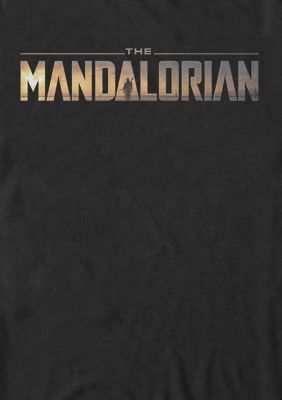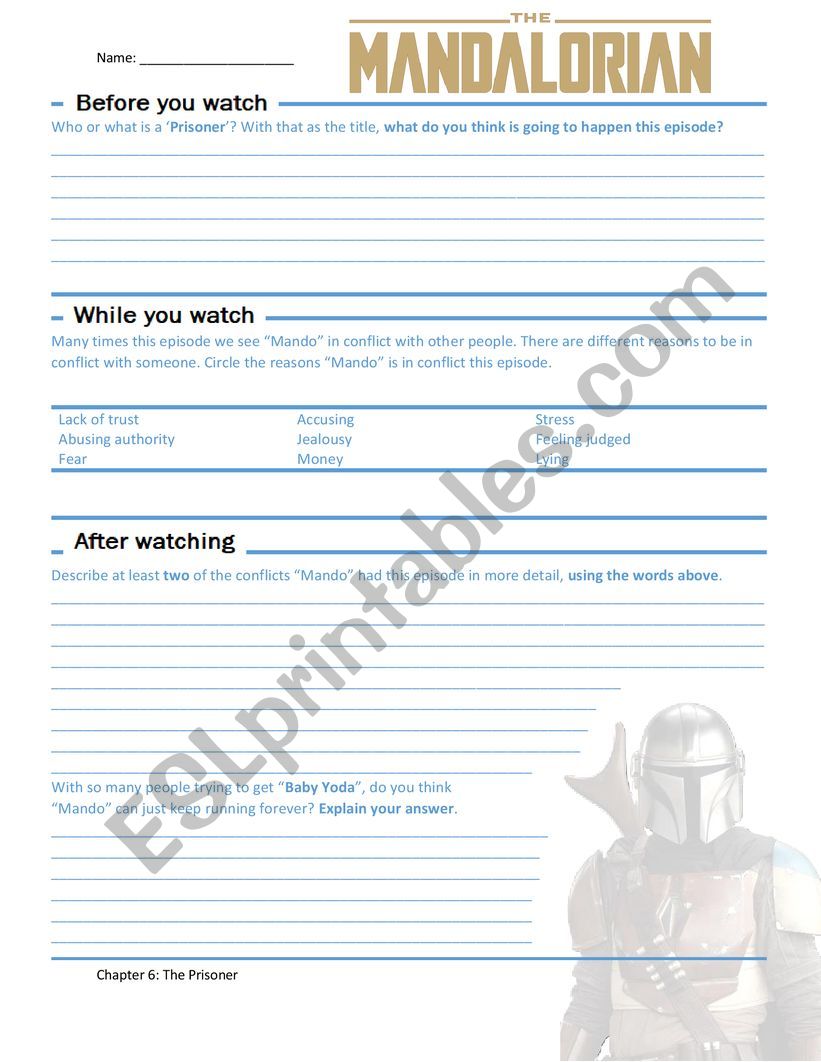
The Mandalorian Title Font
Set five years after the events of return of the jedi and 25 years prior to the events of the force awakens it follows the title character the mandalorian bounty hunter din djarin and his exploits beyond the reaches of the new republic.
The mandalorian logo font for free. According to the author this mandalorian font is a movie accurate version of the mandalorian font as seen in the episode ii visual dictionary and the 2004 star wars dvd release. The mandalorian is an american space opera web television series which premiered on disney on november 12 2019.
Set in the star wars universe created by george lucas the series takes place between the events of episode vi return of the jedi and episode vii the force awakens. Proximamente nuevos glyphs y mucho mas. Mandalorian font is a logo font that we have seen in the mandalorian title.
Its an american space western web television series that was first released on november 12 2019.